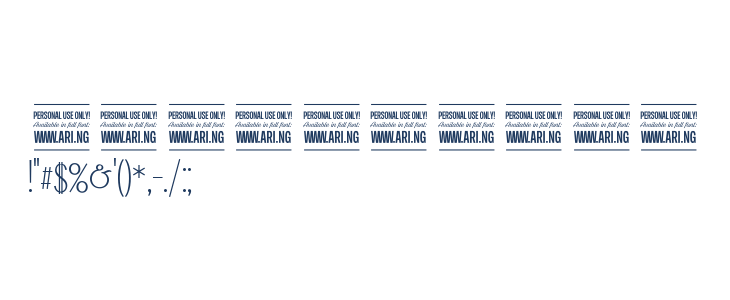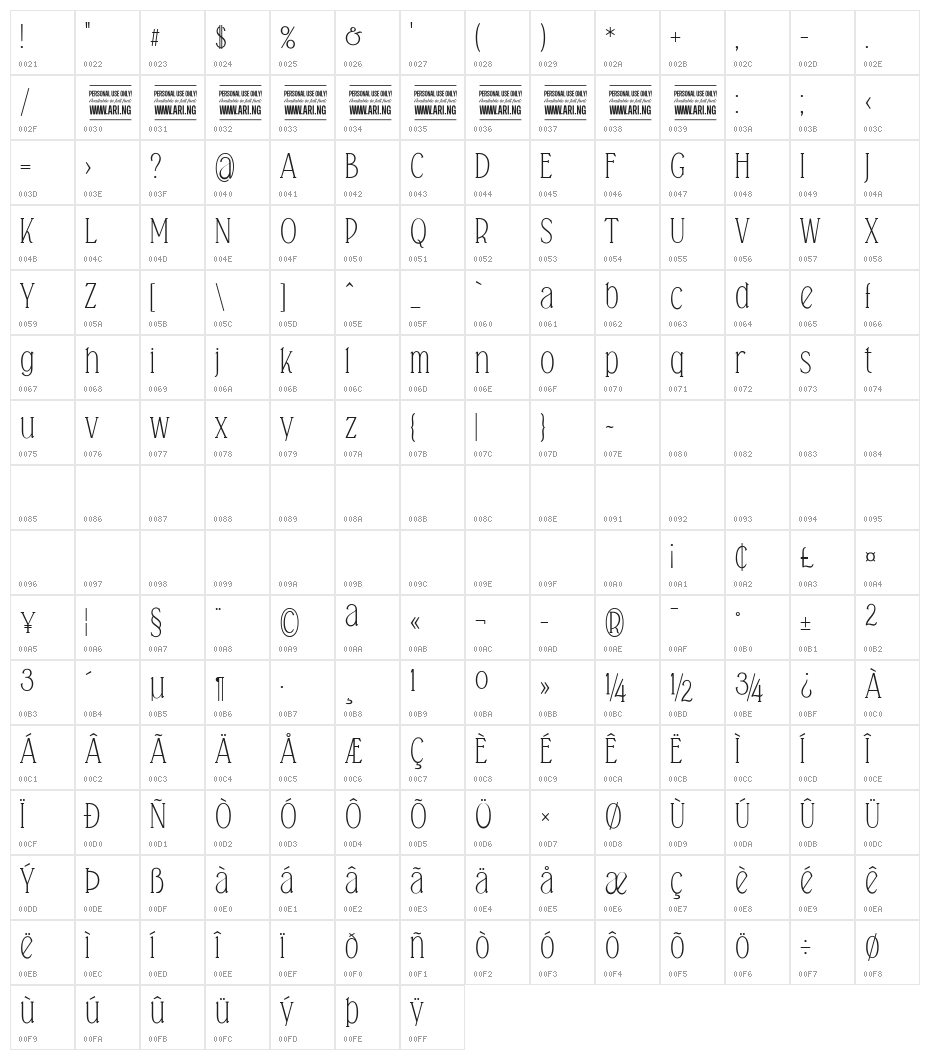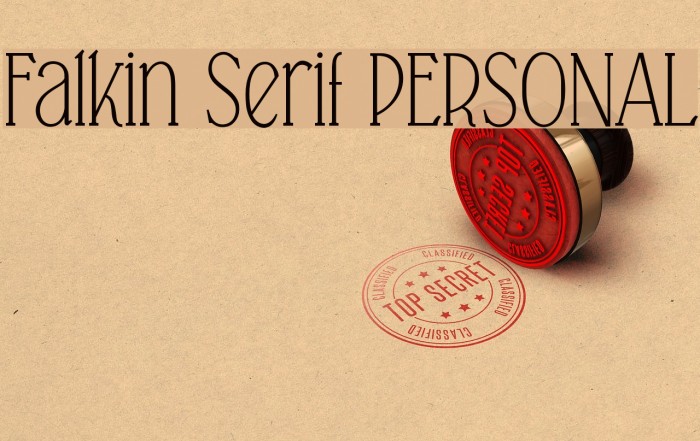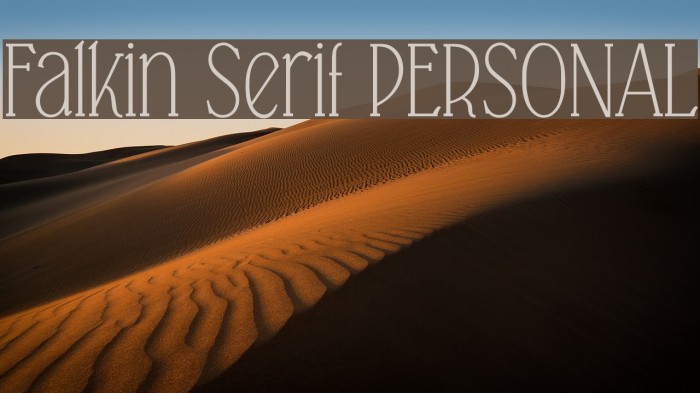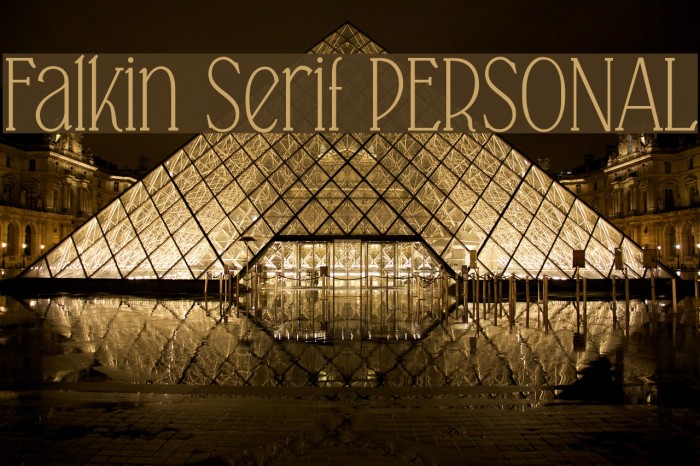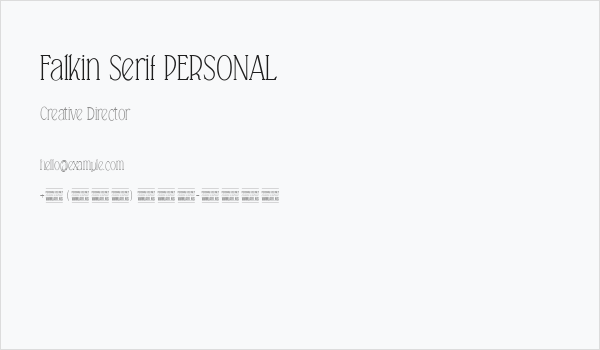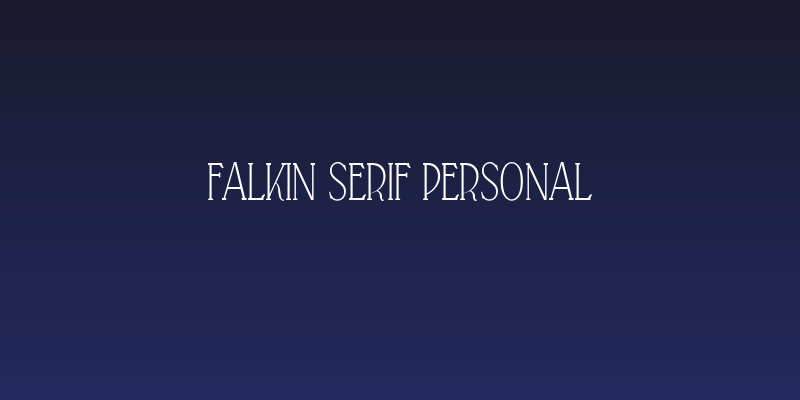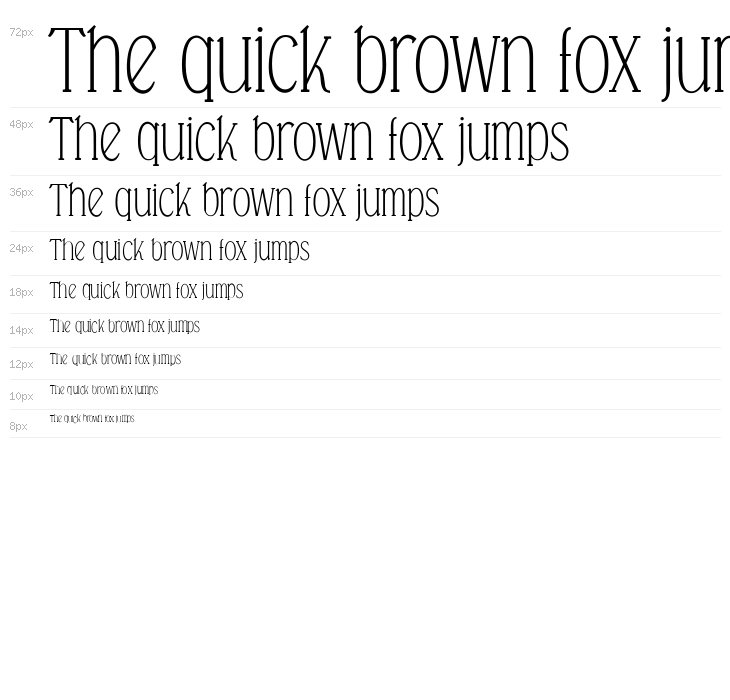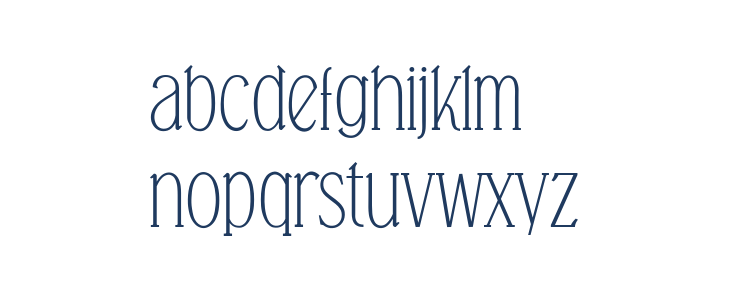
Falkin Serif PERSONAL Font
Falkin Serif PERSONAL Description
This font features a classic serif style with elegant, elongated lines and a refined appearance. The characters are tall and slender, with a consistent stroke width that gives it a sophisticated look. The serifs are pronounced yet subtle, adding a touch of tradition to the modern design. The uppercase letters are particularly striking, with a commanding presence, while the lowercase letters maintain a harmonious balance. The numerals and special characters are designed to complement the overall aesthetic, ensuring versatility across various applications.
| Proposed Projects | Ideal for editorial design, book covers, formal invitations, and branding projects that require a touch of elegance and sophistication. |